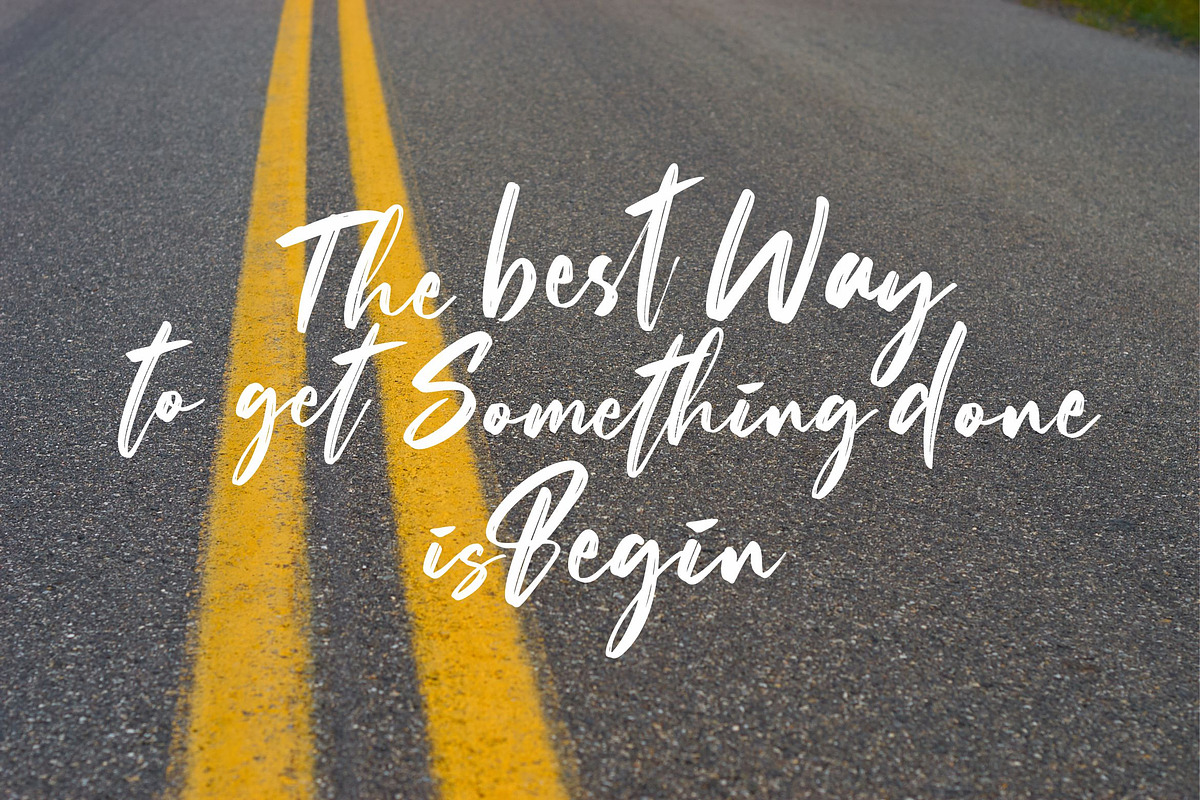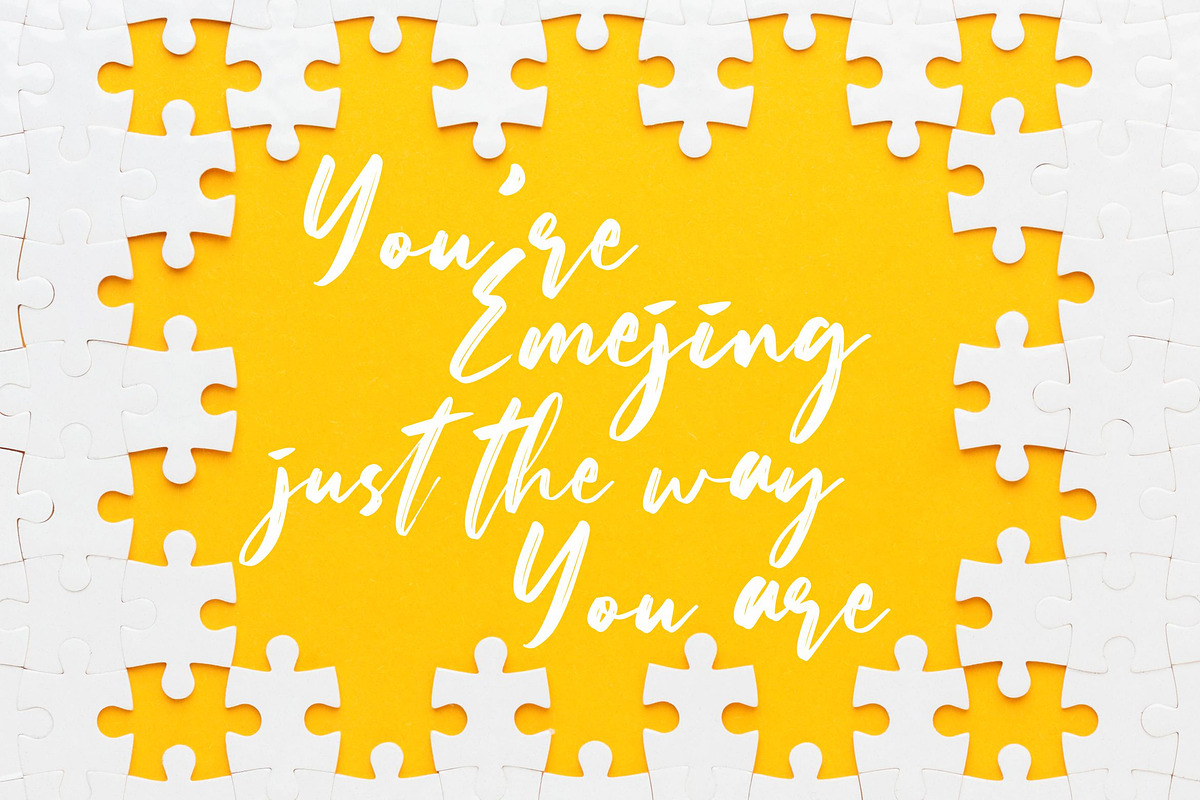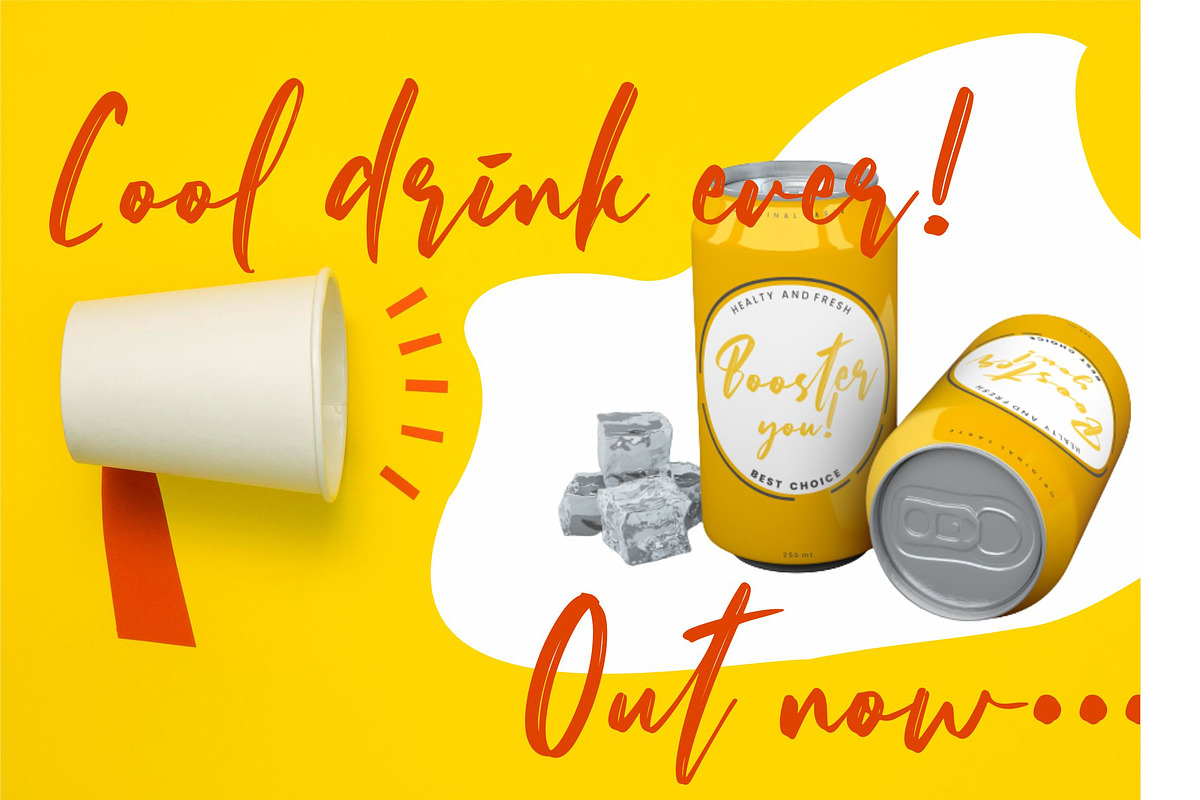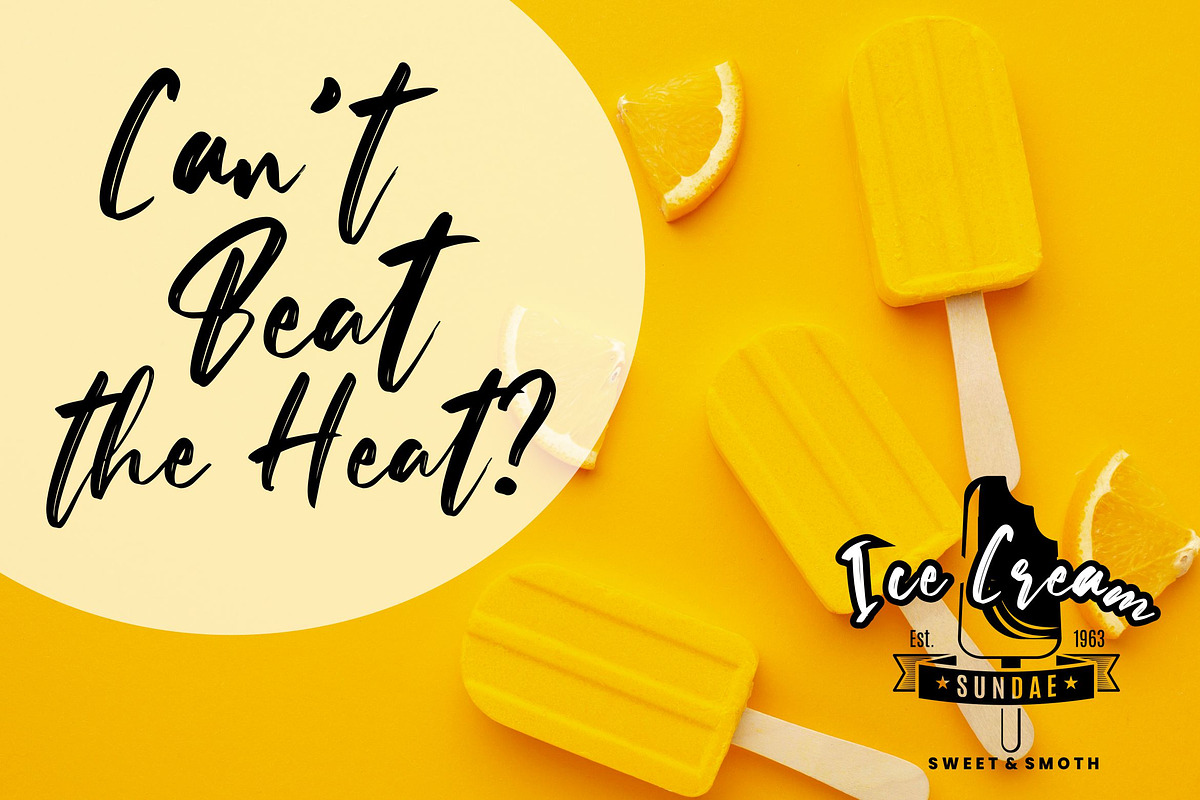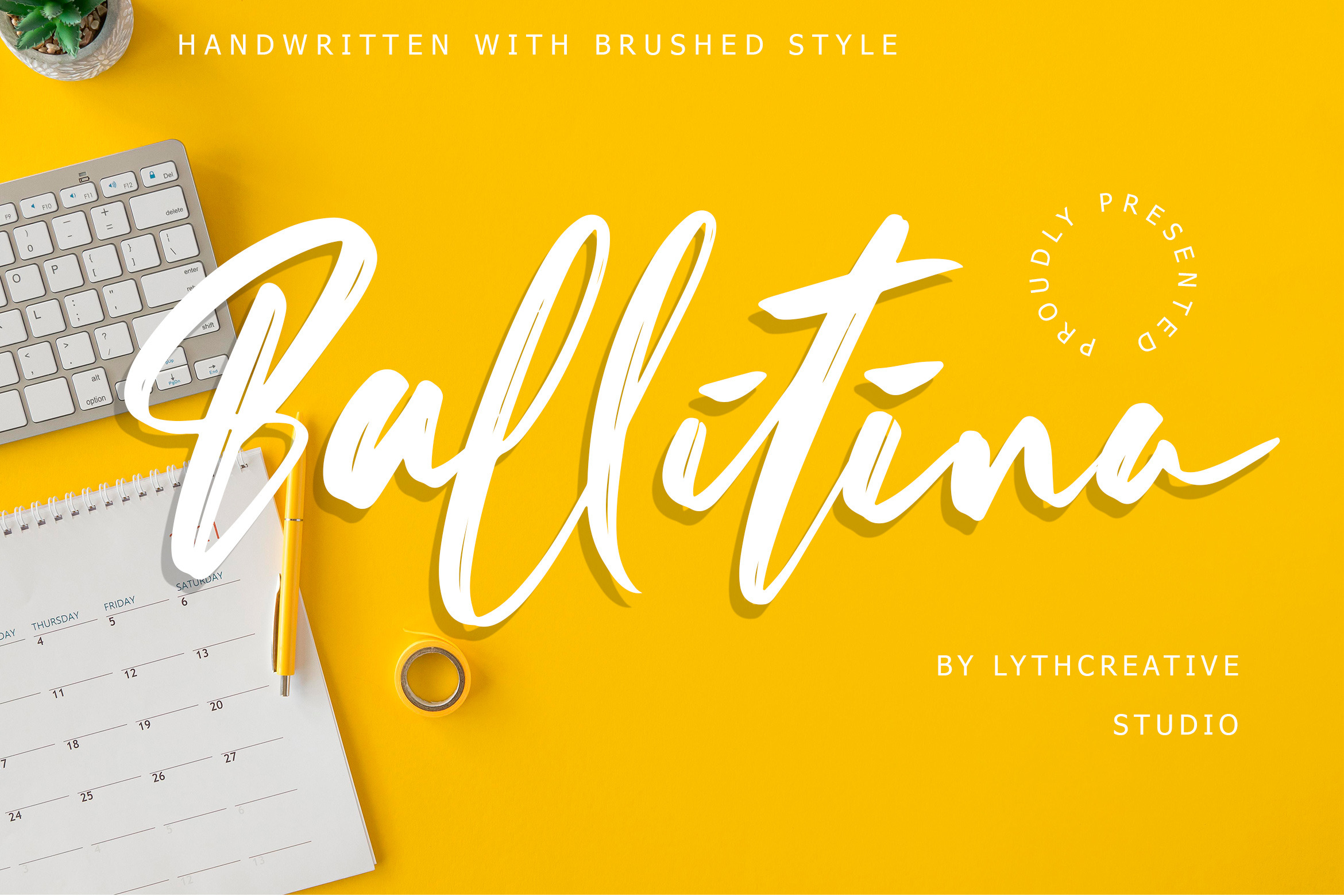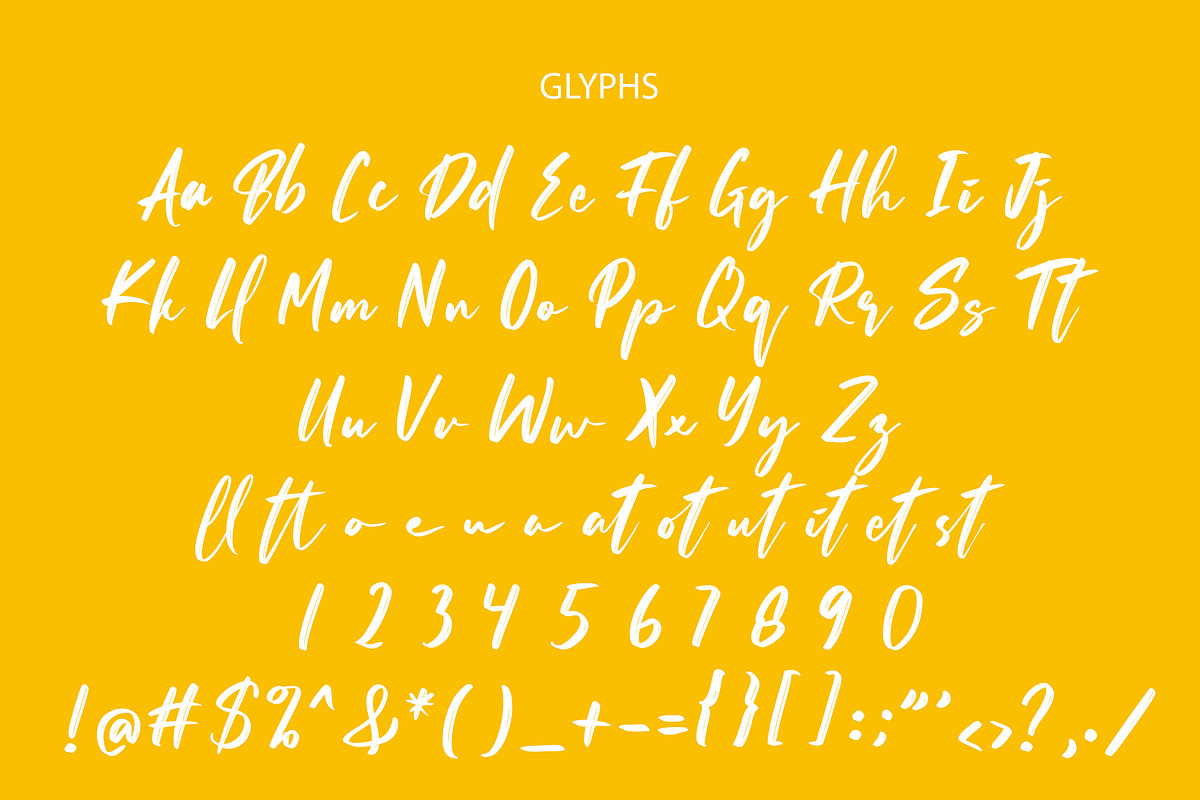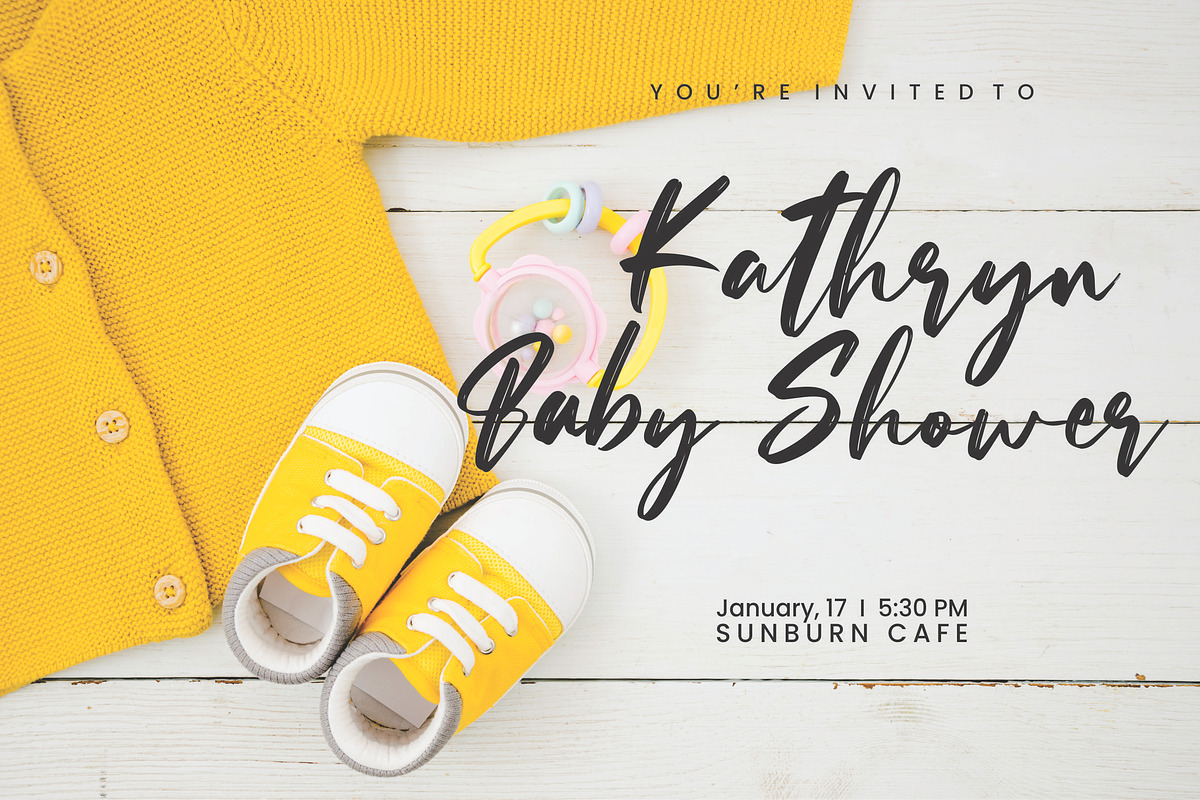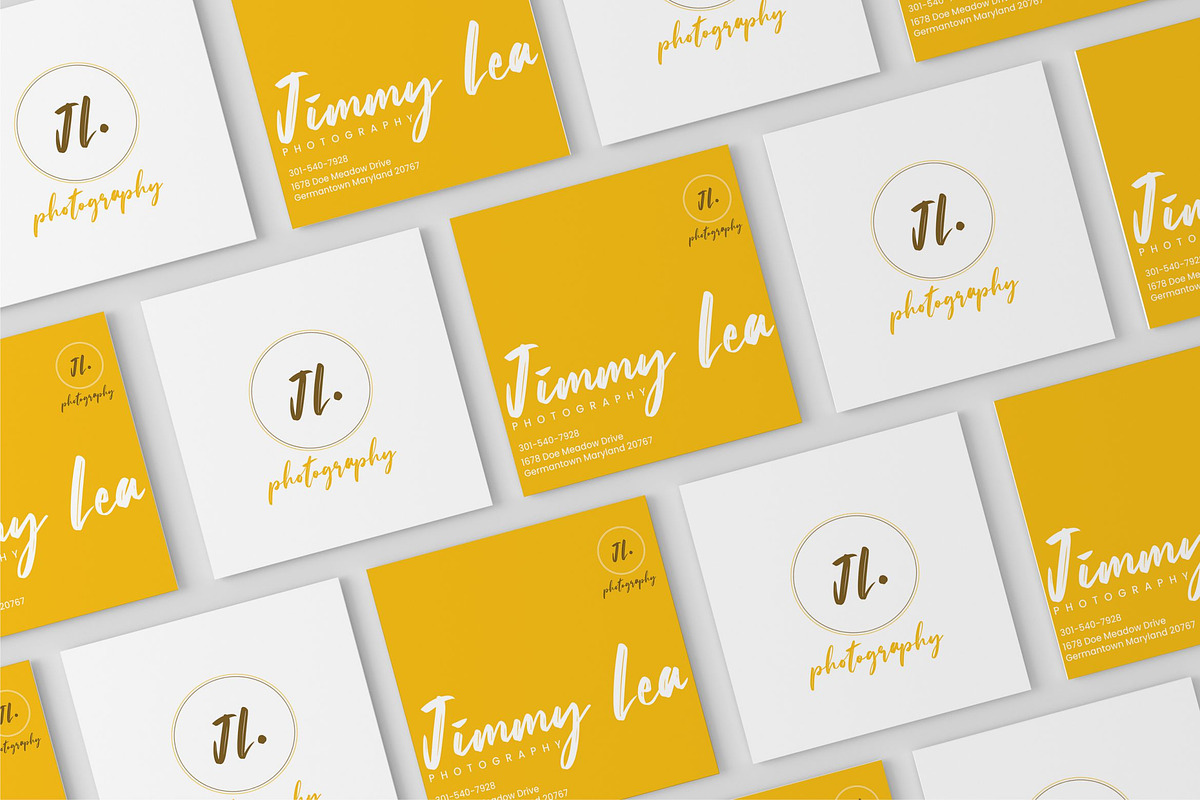
Ballitina Brushed Font
Ballitina is an exciting handwritten font with brush style. This beautiful script can make your text appear elegant, luxurious, and modern!
This font perfect for branding projects, logo, book cover design, tshirt designs, social media posts, advertisements, product packaging, product designs, label, watermark, invitation, stationery and any projects